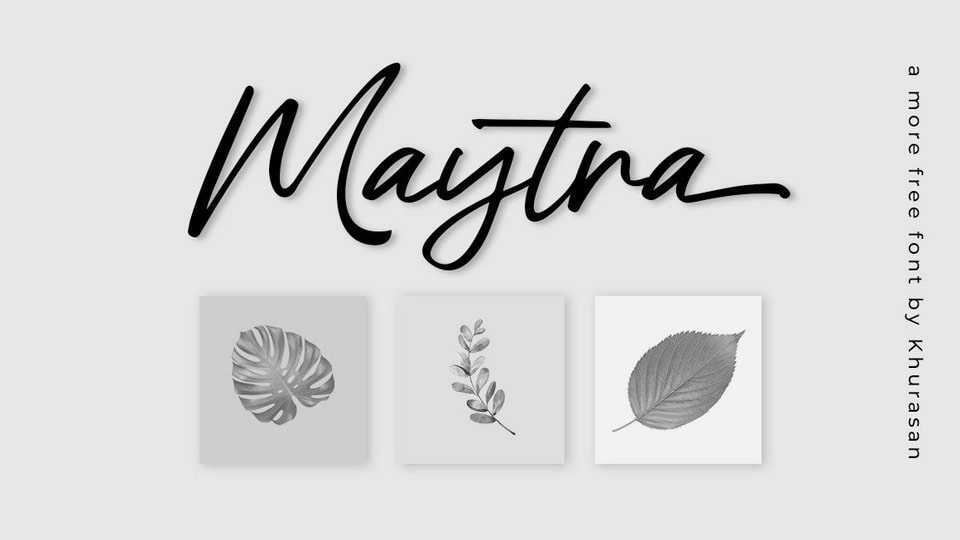
Download Maytra font, a modern and stylish handwritten script typeface. With its dynamic flow Maytra font is perfect for posters, logos, magazines, book covers, banners, and many more.